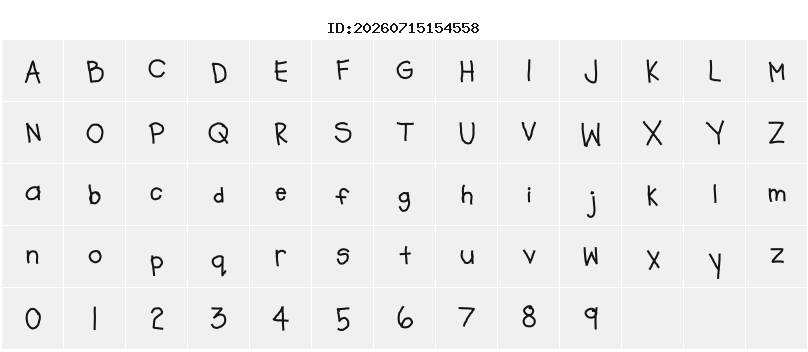
abbys font Preview
• Font Name: abbys font
• Full Font Name: abbys font
About abbys font.ttf
abbys font.ttf is a modern, elegant sans-serif font designed for ultimate readability and visual harmony. Perfect for branding, headlines, web design, and print materials.